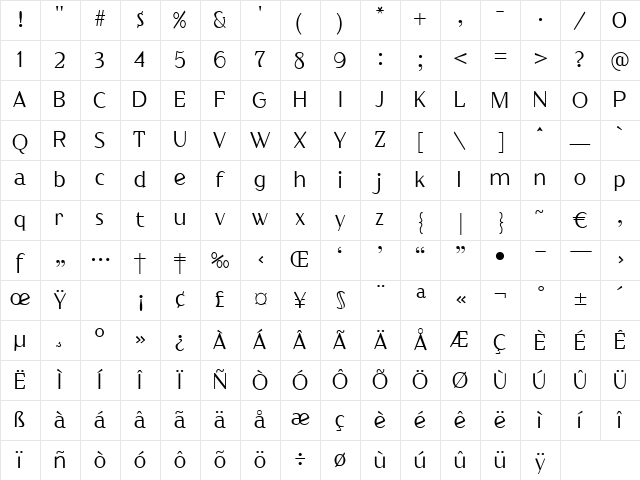
Lutetia Regular Free Font
Lutetia Regular
Design Context for Lutetia
Lutetia is a composed and adaptable typeface that performs quietly and consistently across a wide range of design contexts.